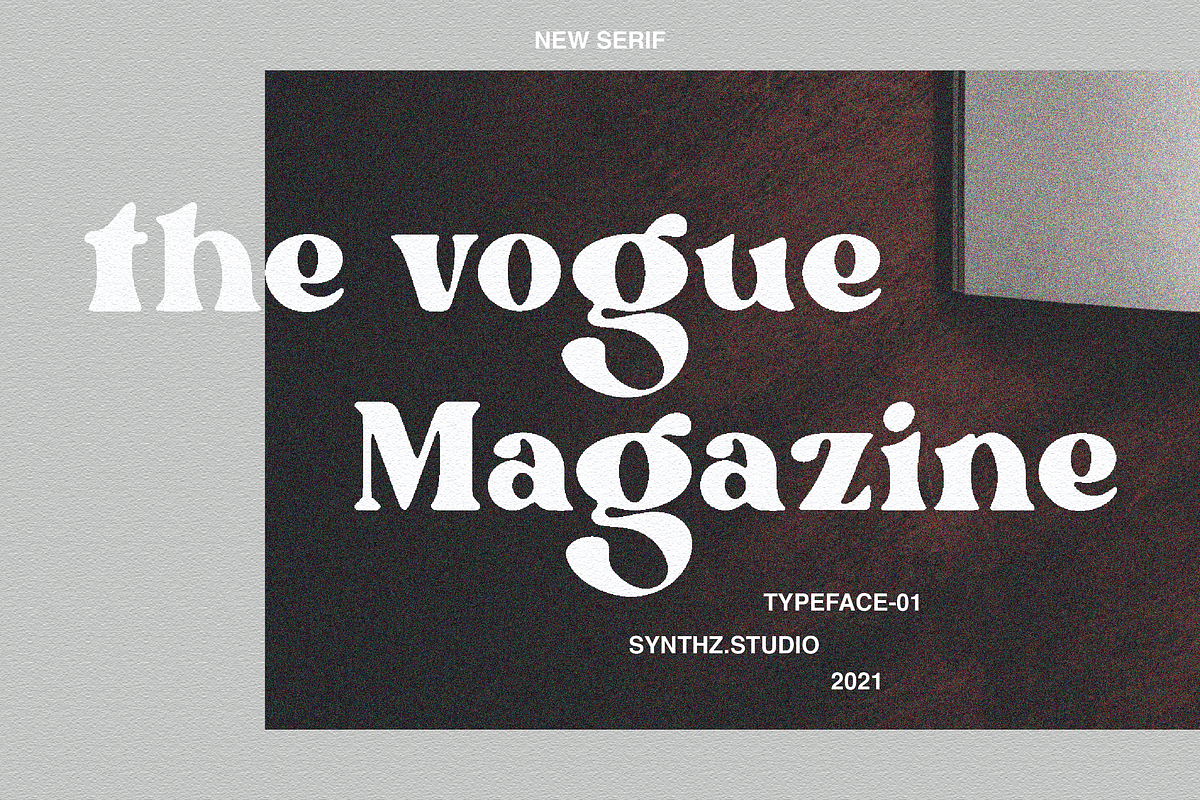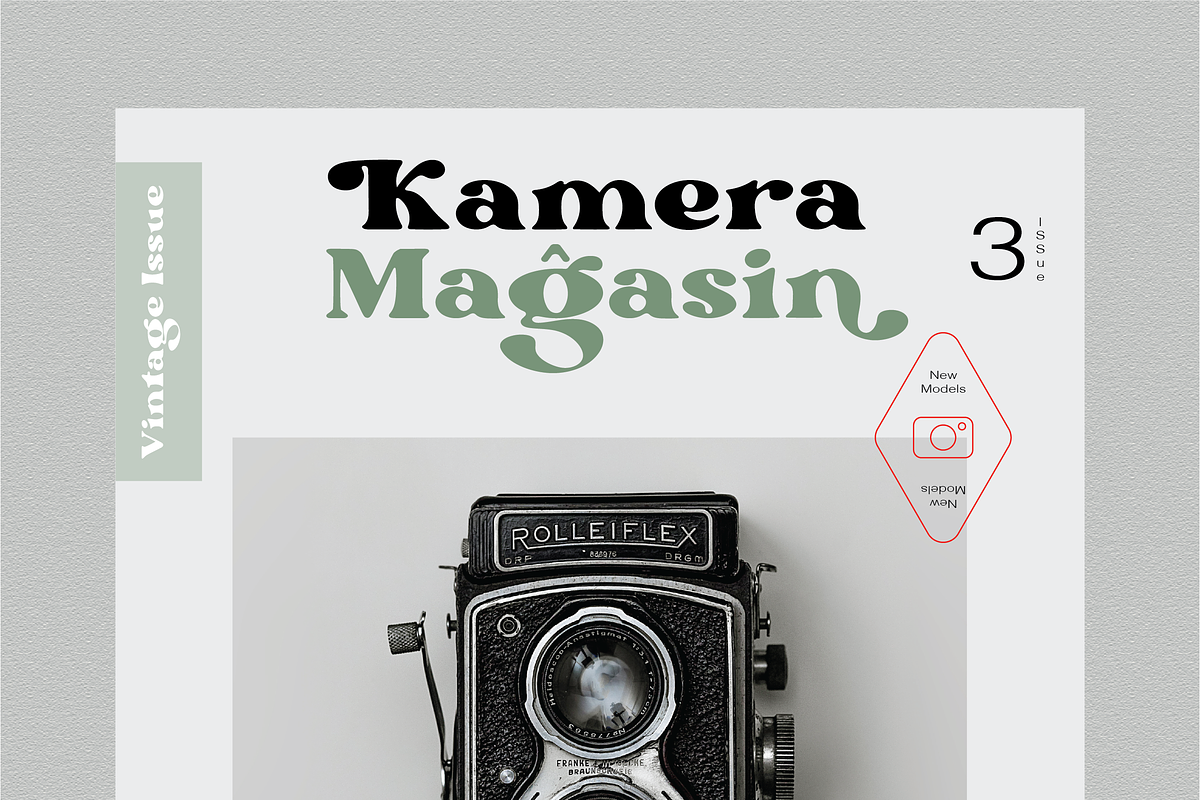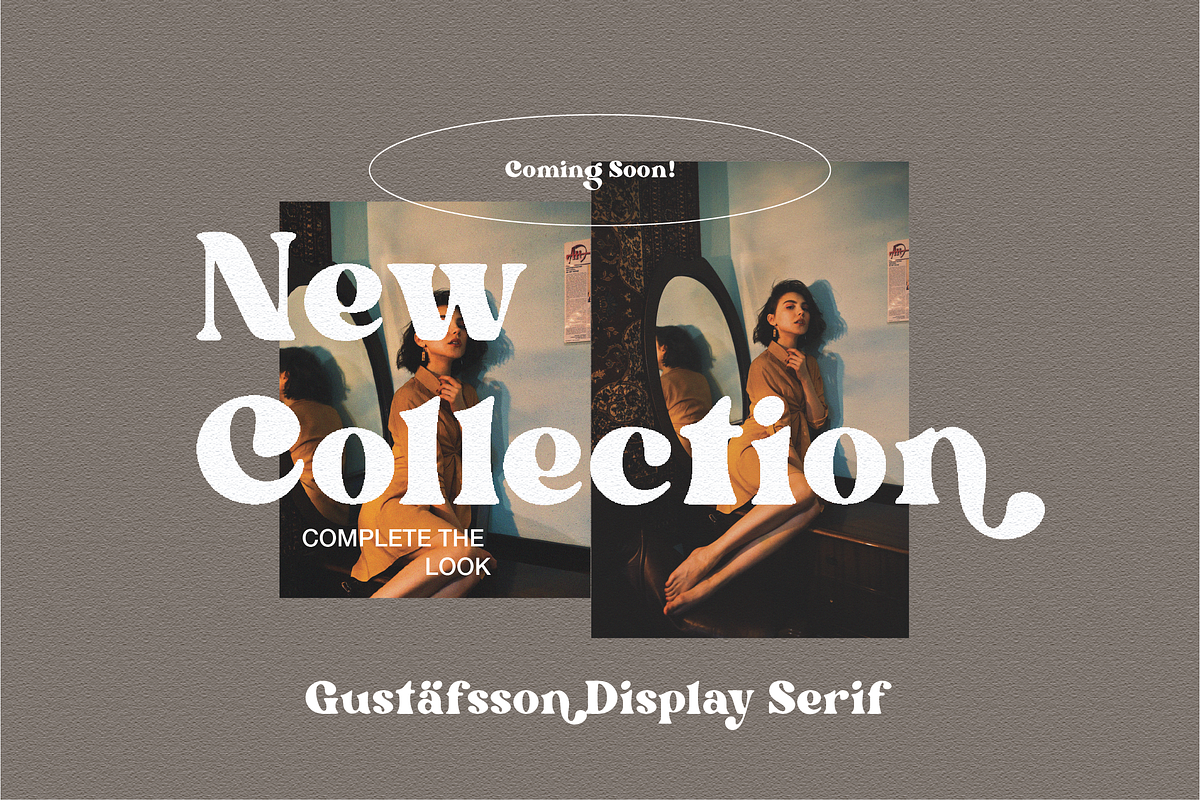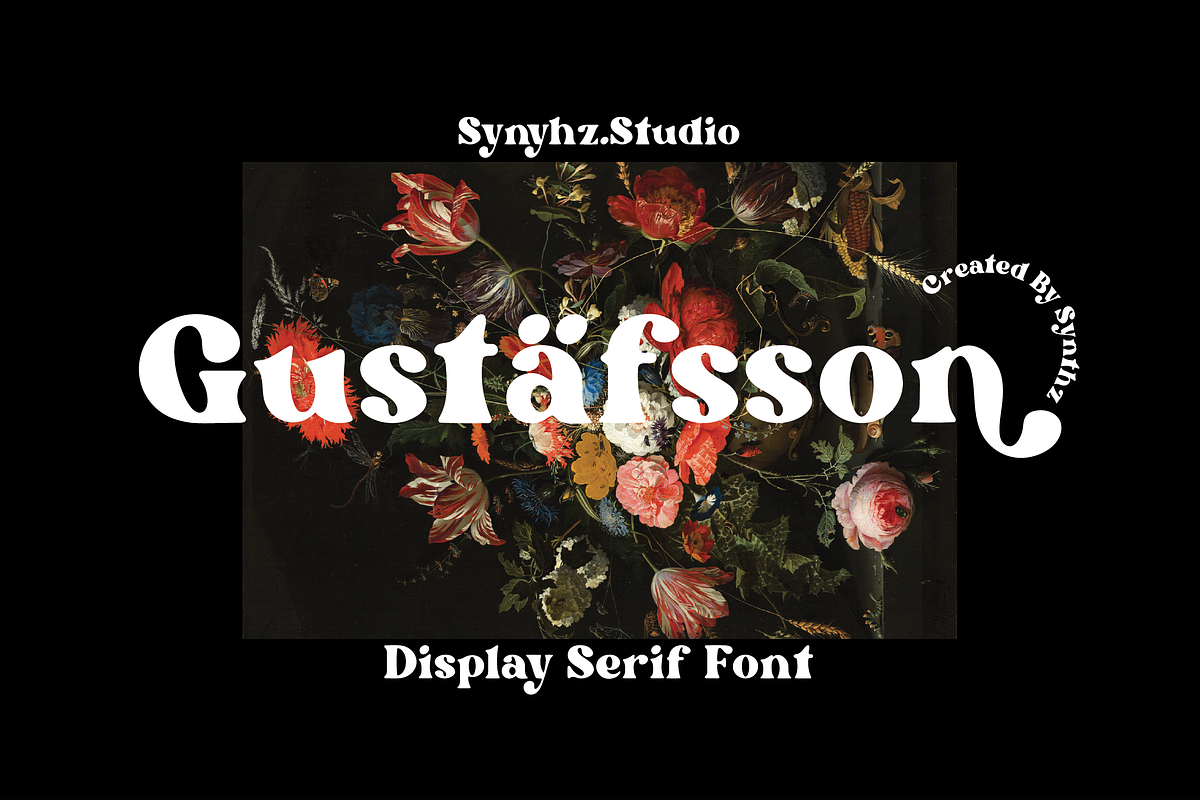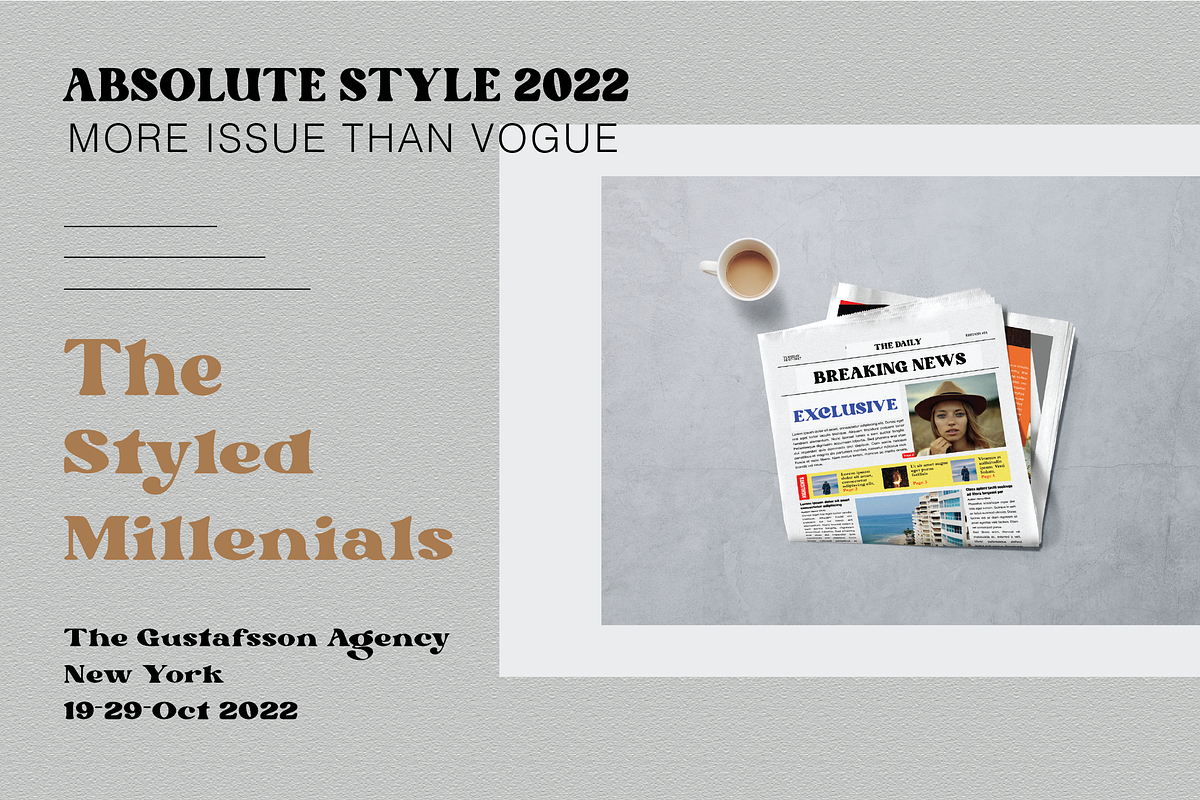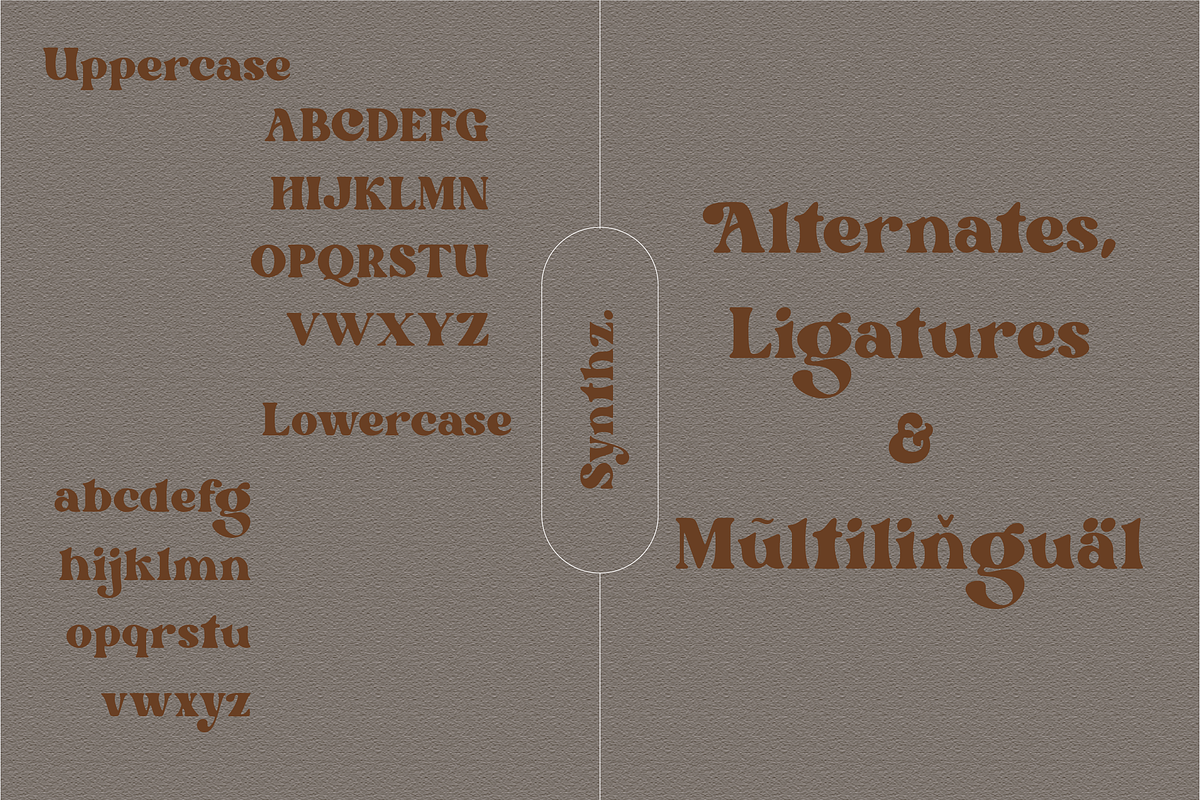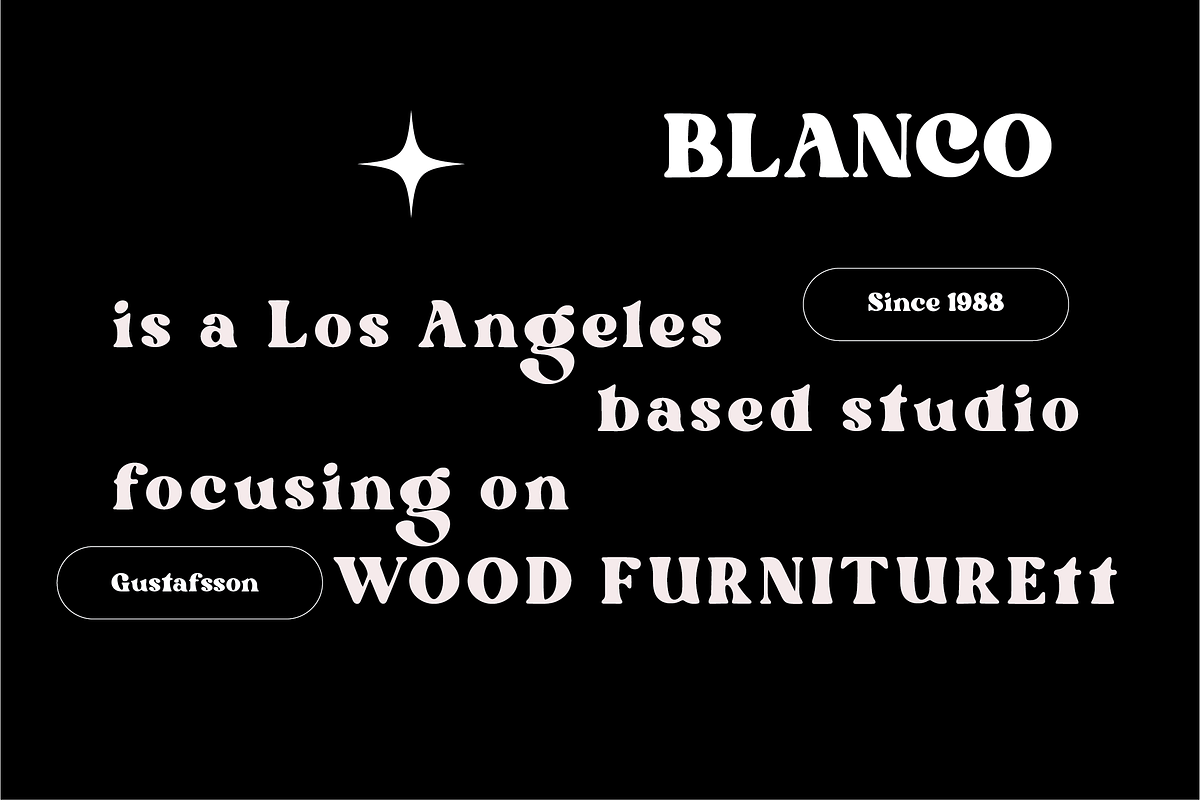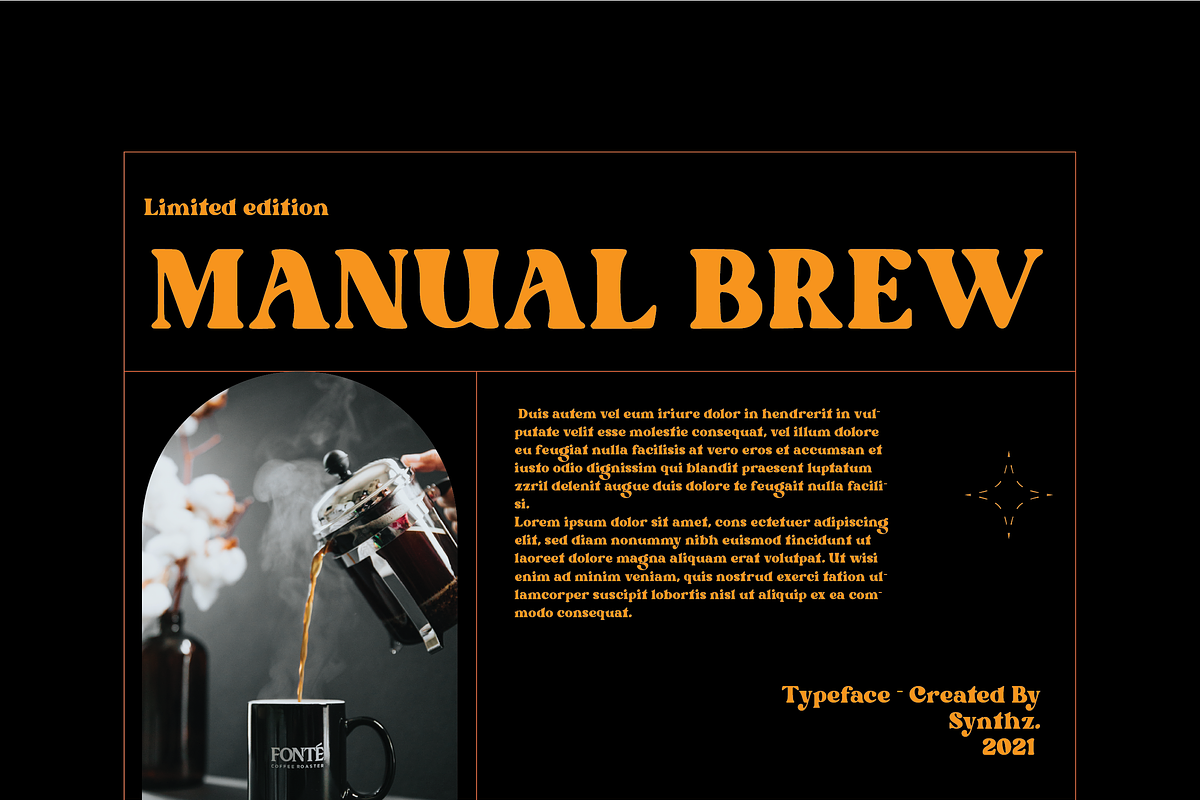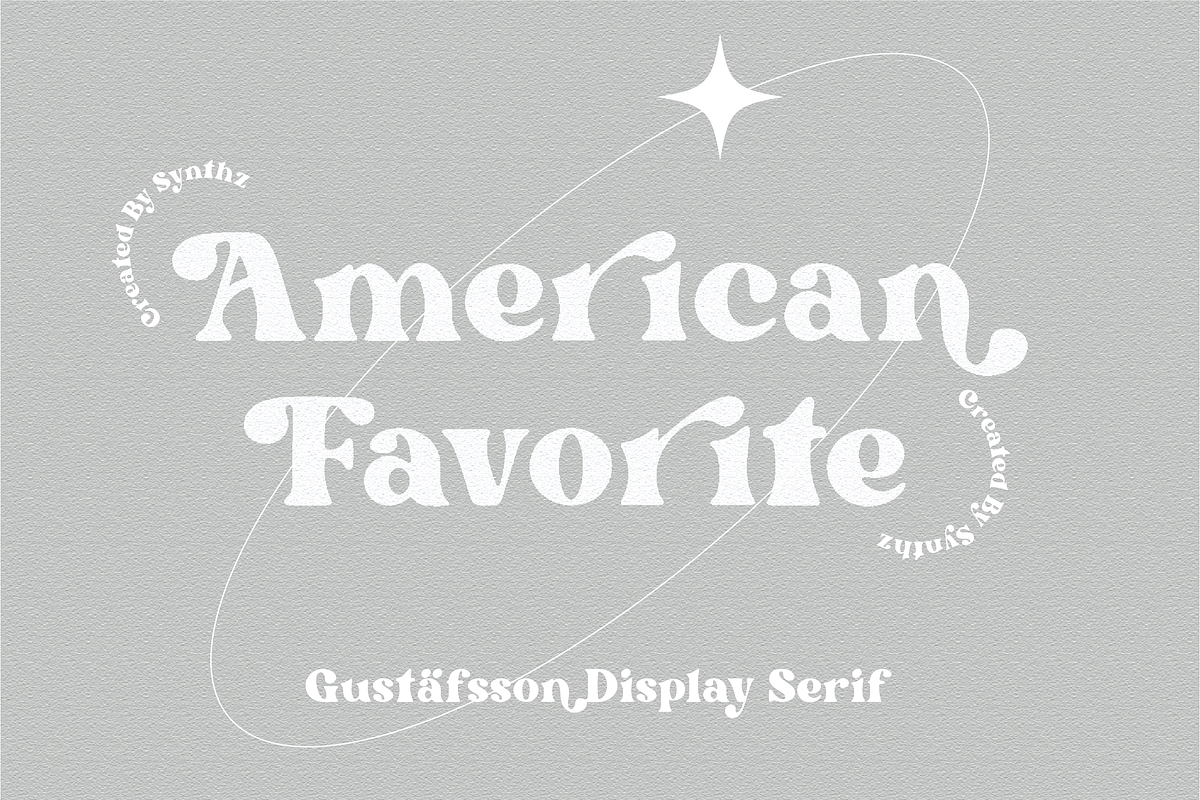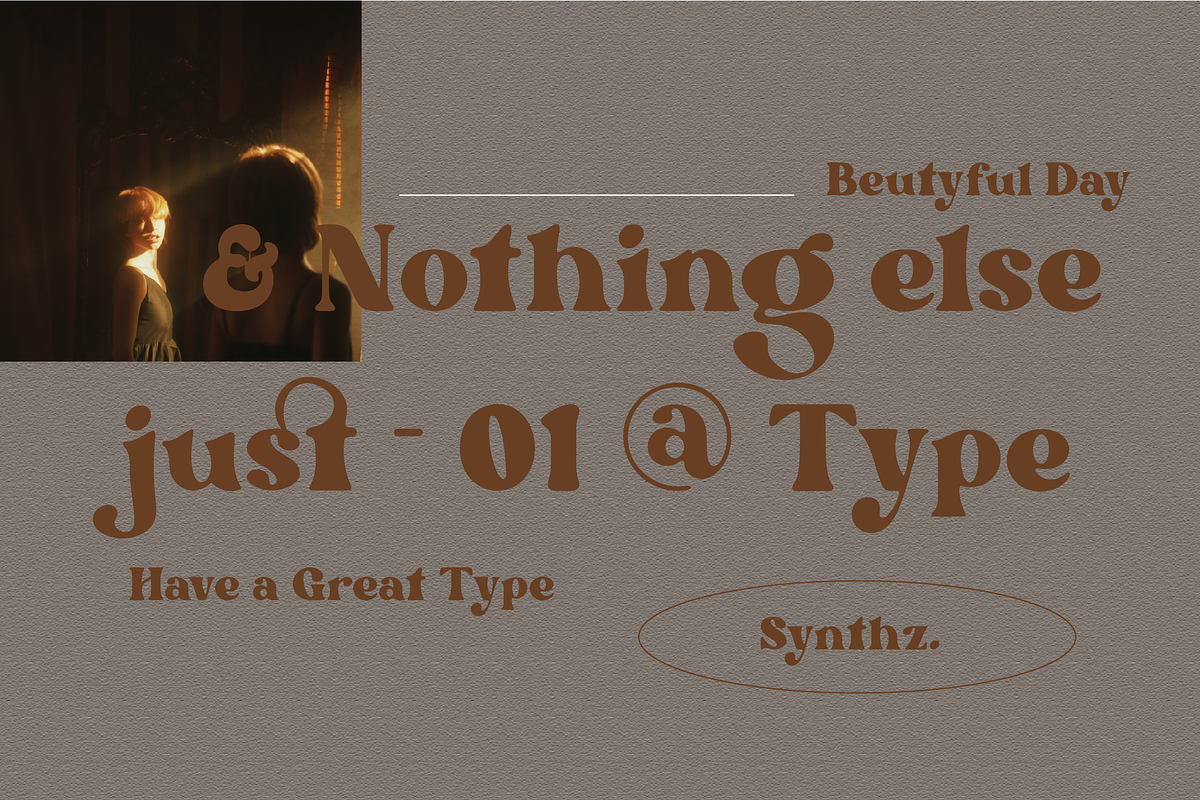
Gustafsson
Gustafsson is a bold, chic and trendy looking serif font. It is imposing and features uniquely shaped letters, and as a result, it will easily match a wide range of creations that require a distinct touch.